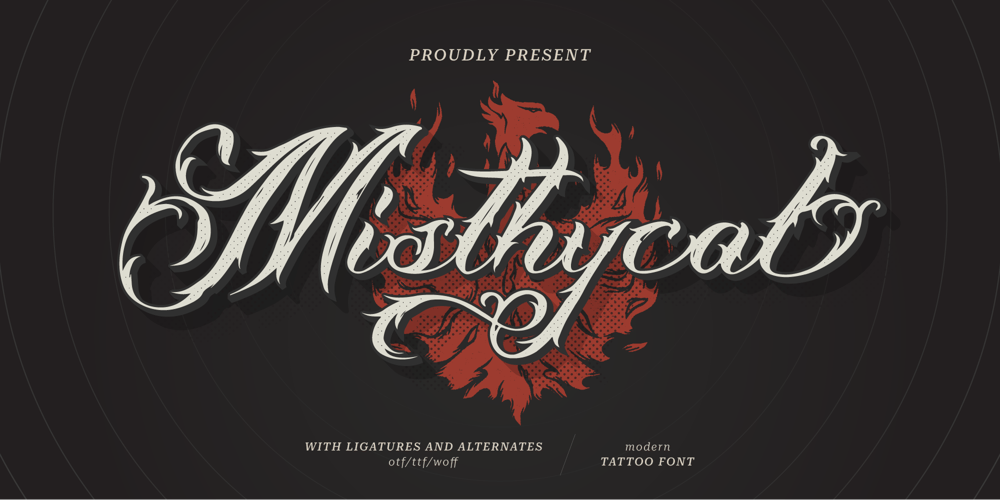
Misthycal Font Family was designed by Dede Nugraha and published by Denustudio. Misthycal contains 2 styles and family package options. Misthycal | Tattoo Style, from Denustudios, suitable for any projects such as: logos, branding projects, homeware designs, product packaging, mugs, quotes, posters, shopping bags, t-shirts, book covers, name card, invitation cards, greeting cards, label, photography, watermark, special events, and all your other lovely projects that need a elegant tattoo style taste. ===============================================================What’s Included : Web Font Standard glyphs Alternate and Ligature Works on PC & Mac Simple installations Accessible in the Adobe Illustrator, Adobe Photoshop, Adobe InDesign, even work on Microsoft Word and Other Software. PUA Encoded Characters – Fully accessible without additional design software. Fonts include multilingual support